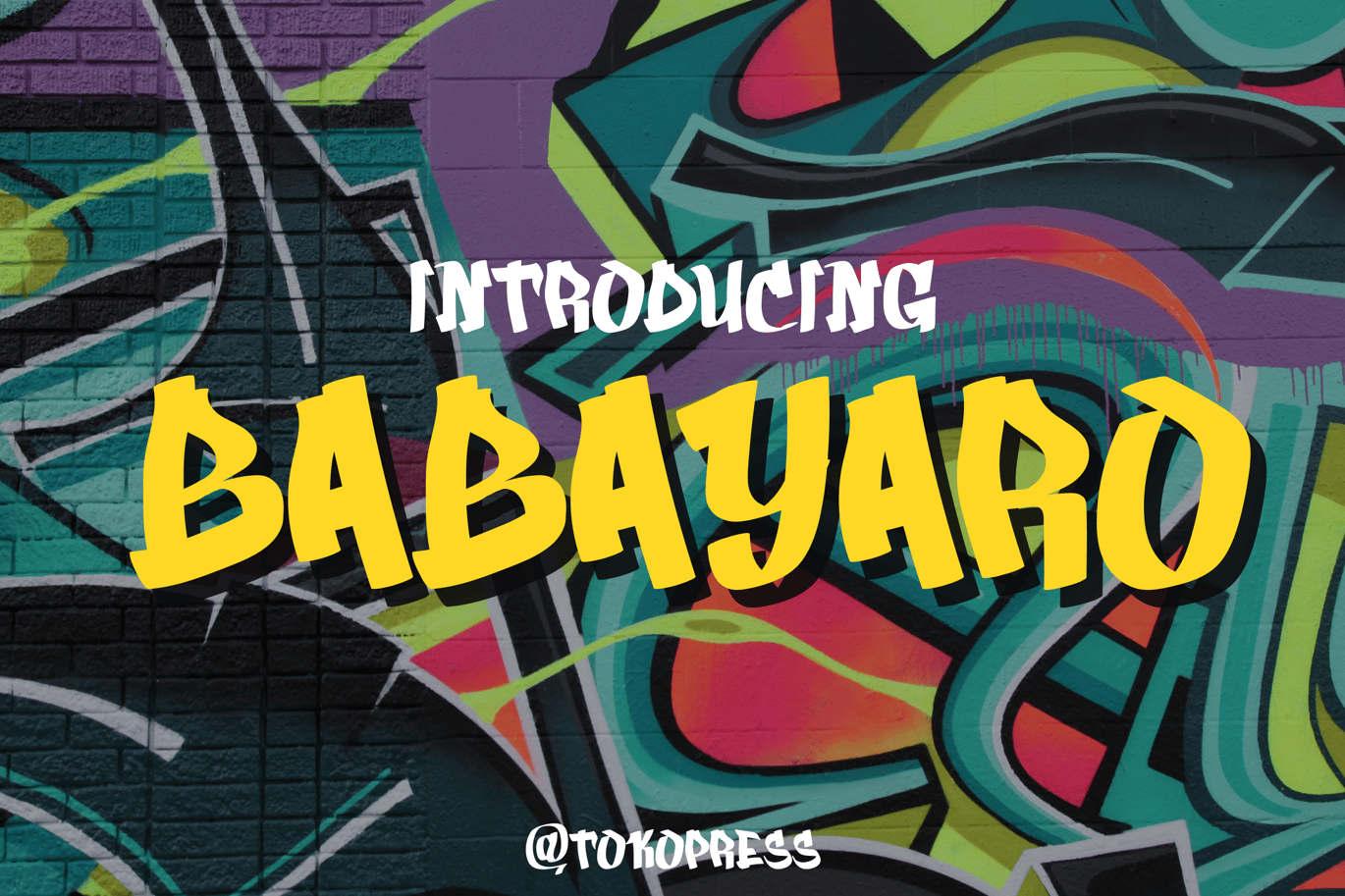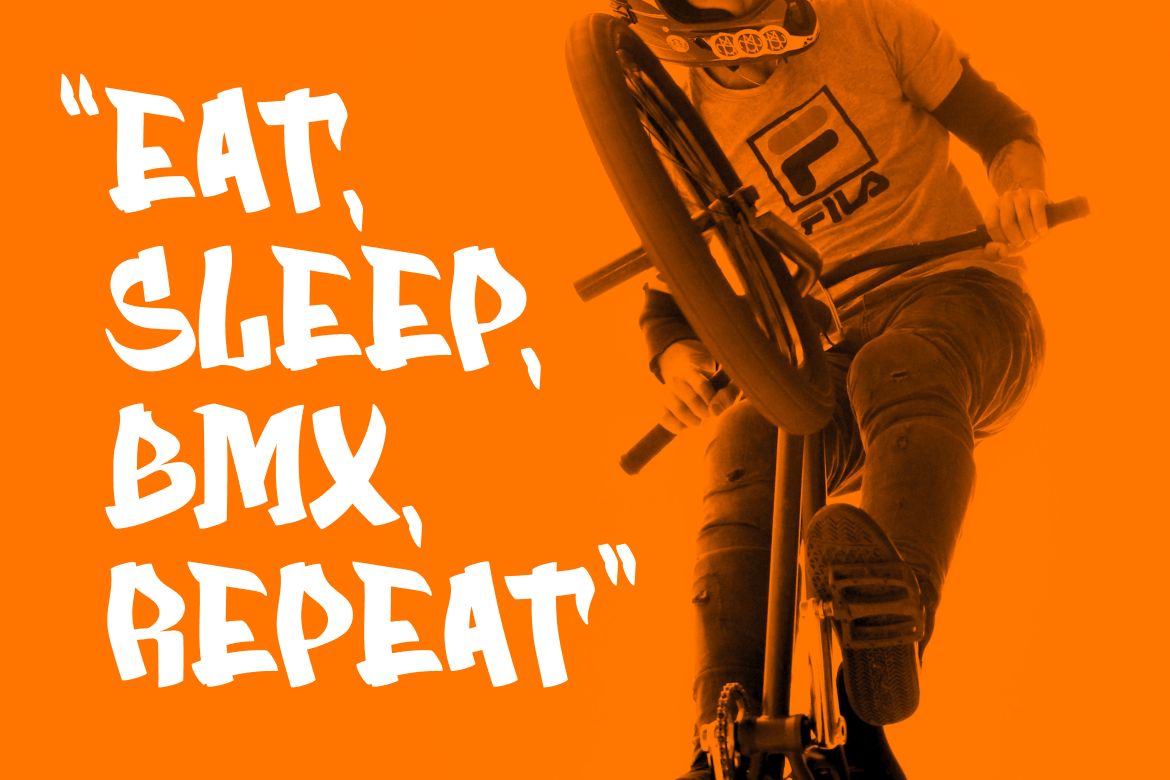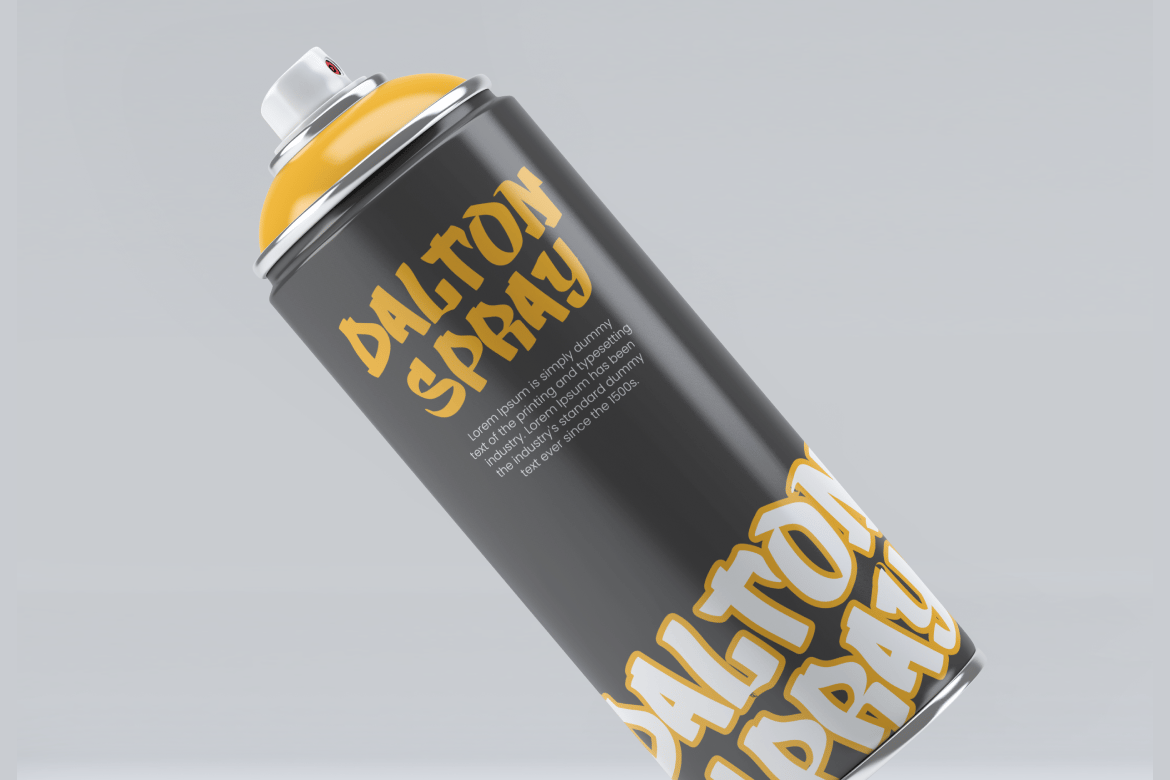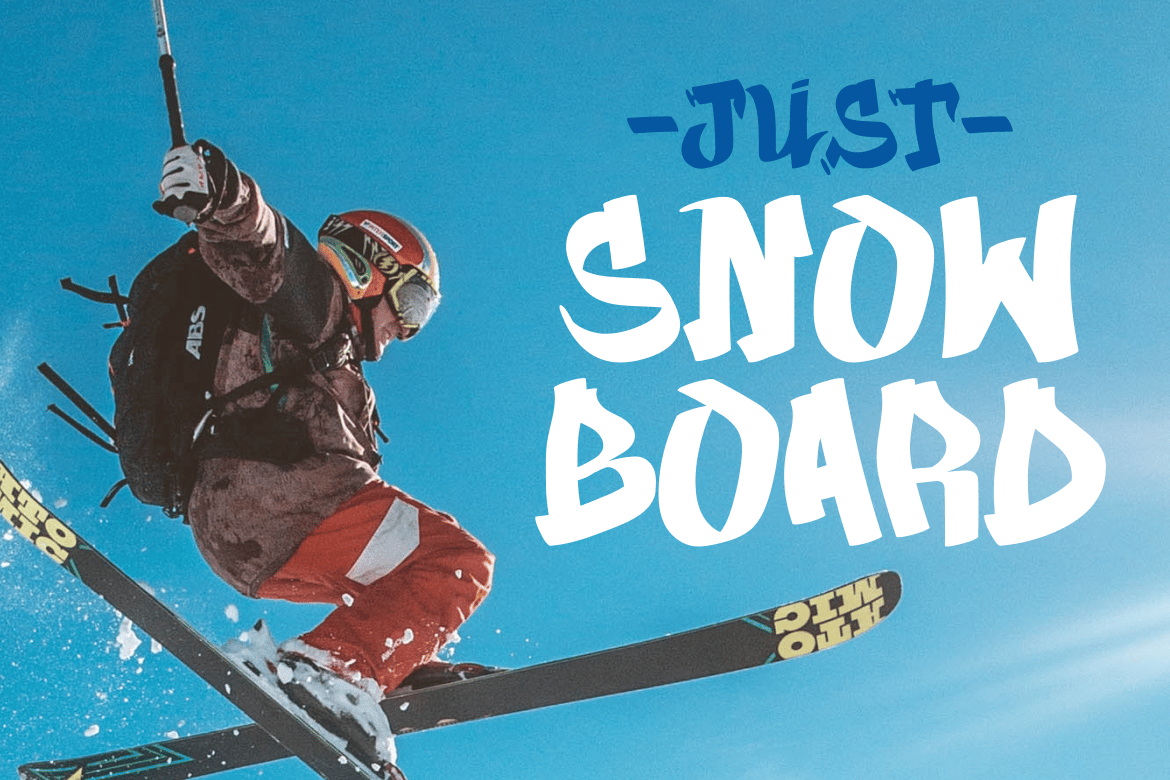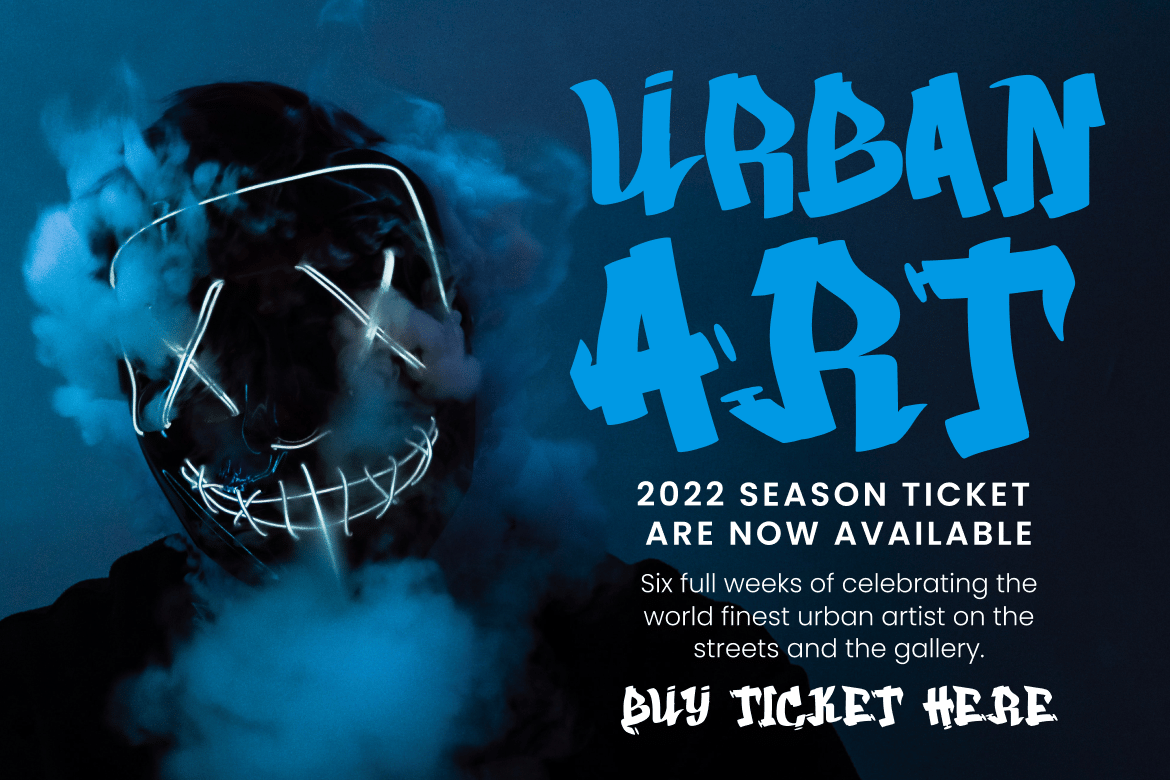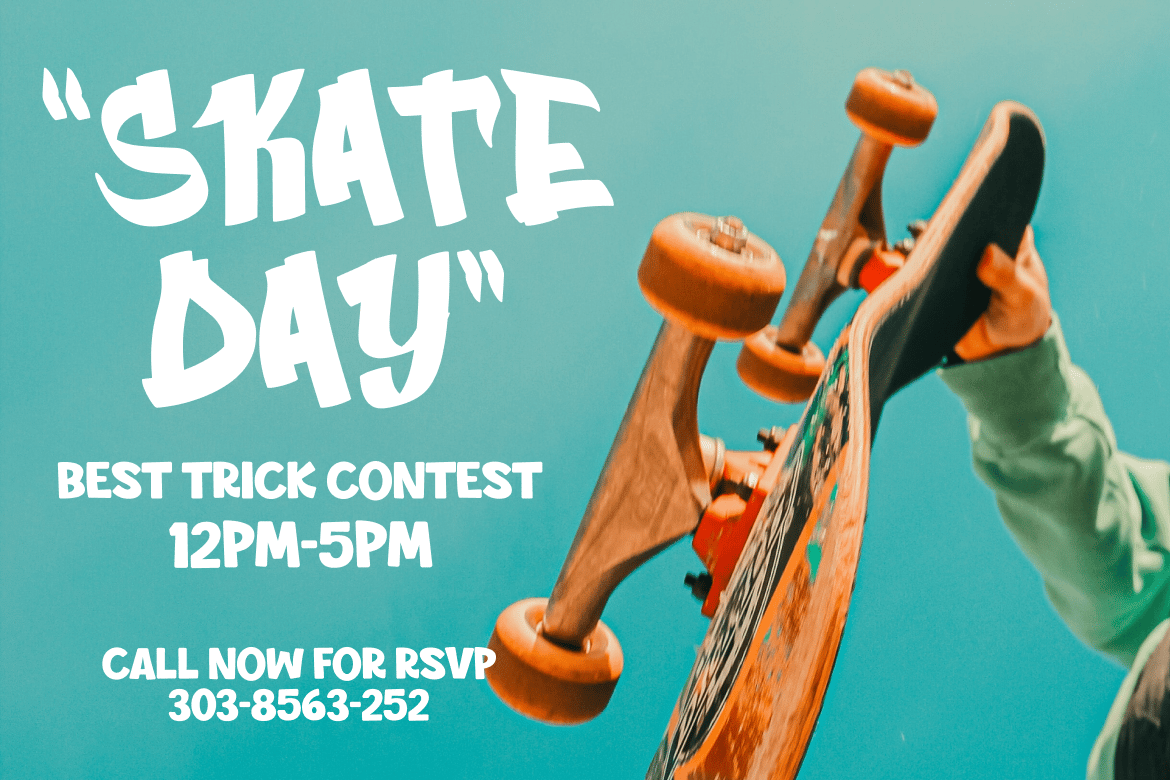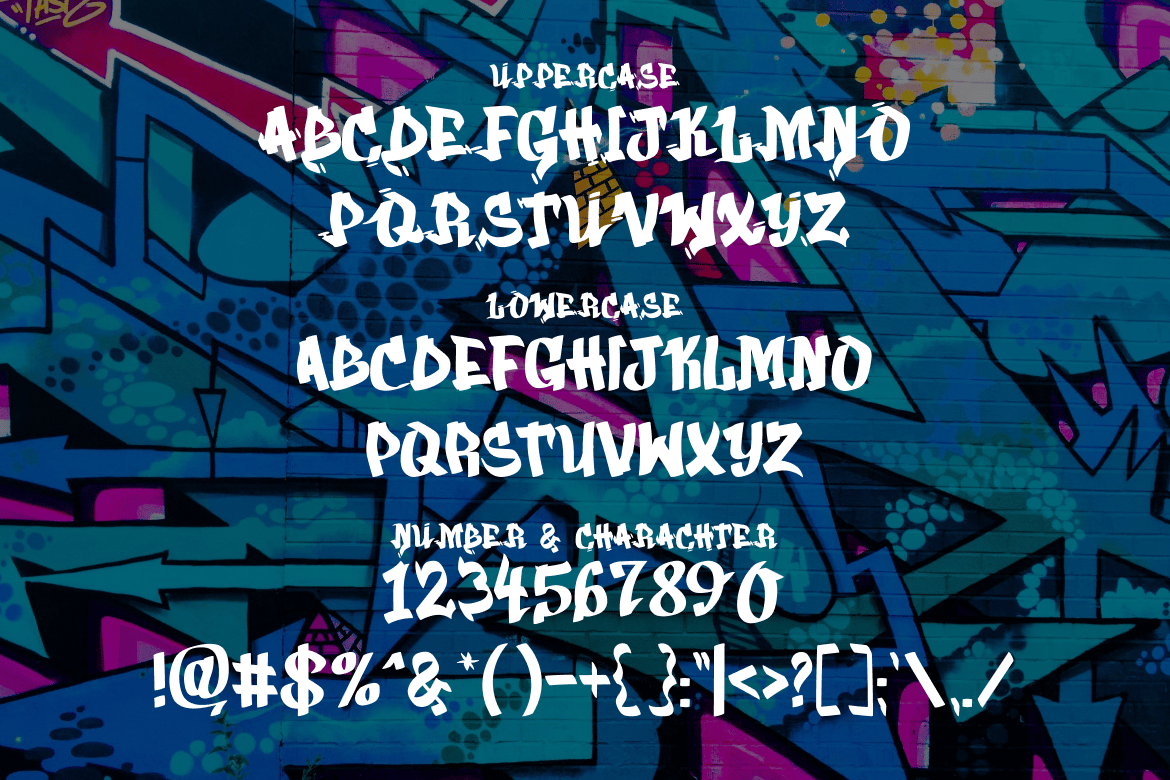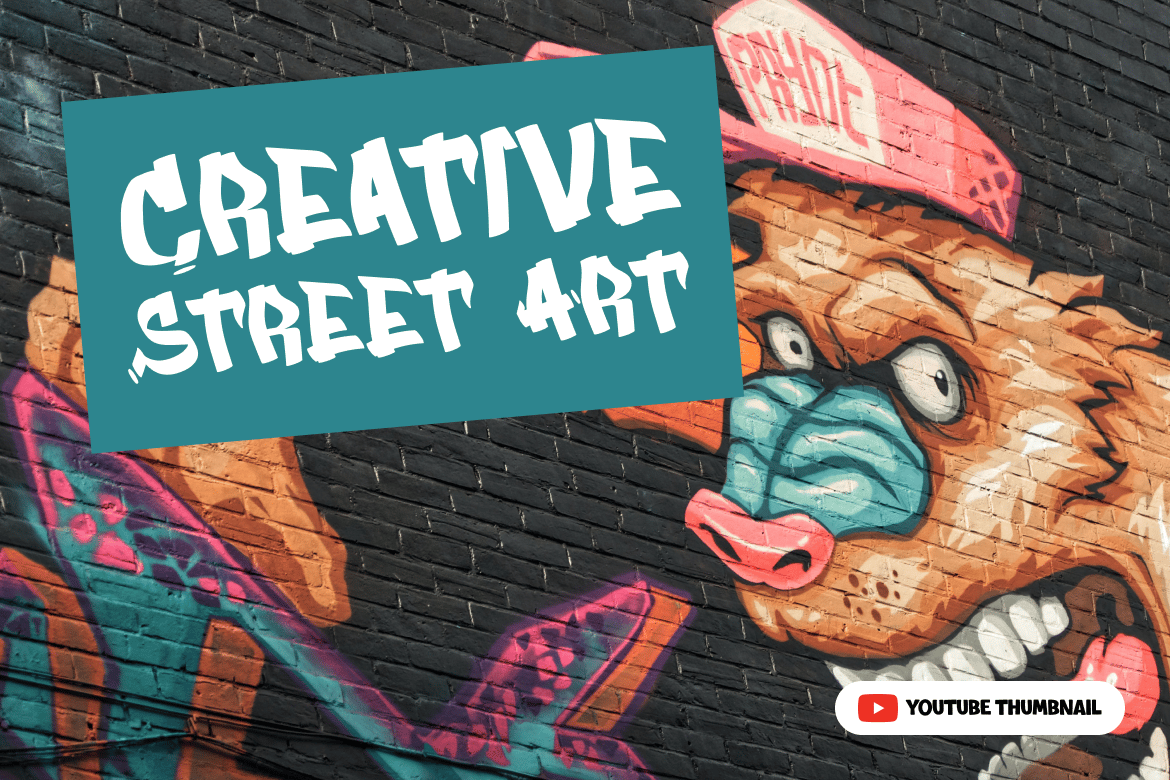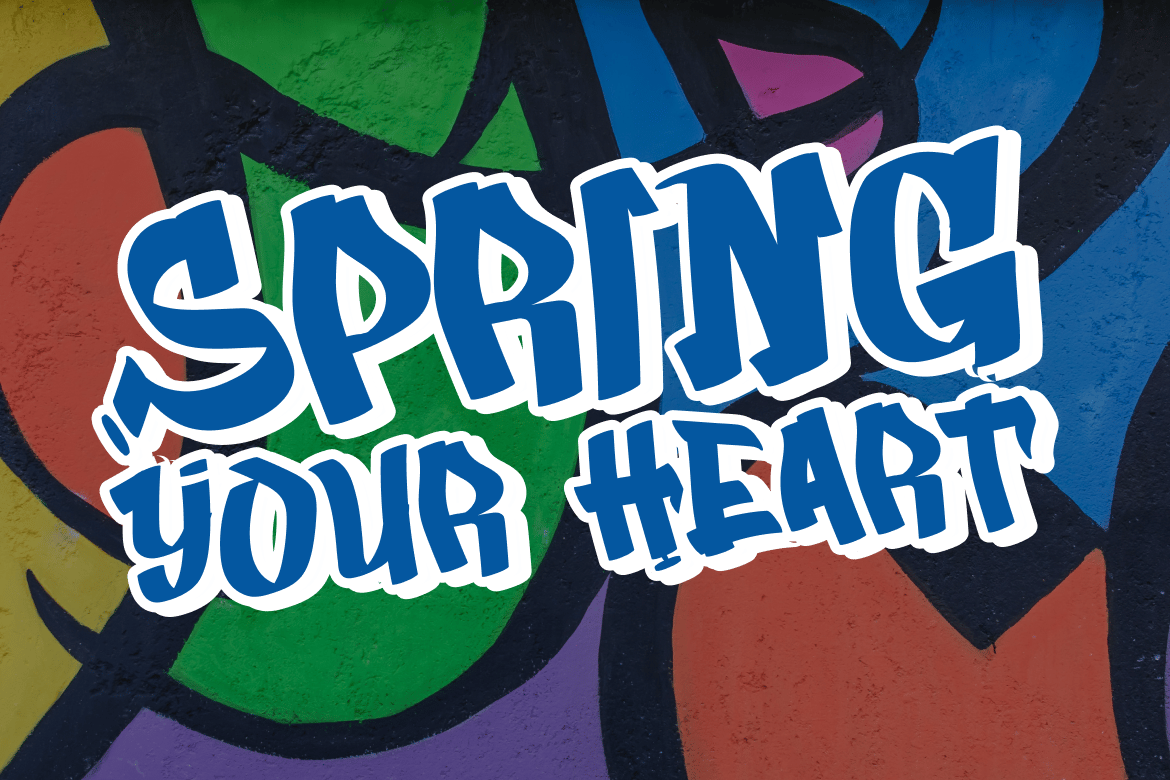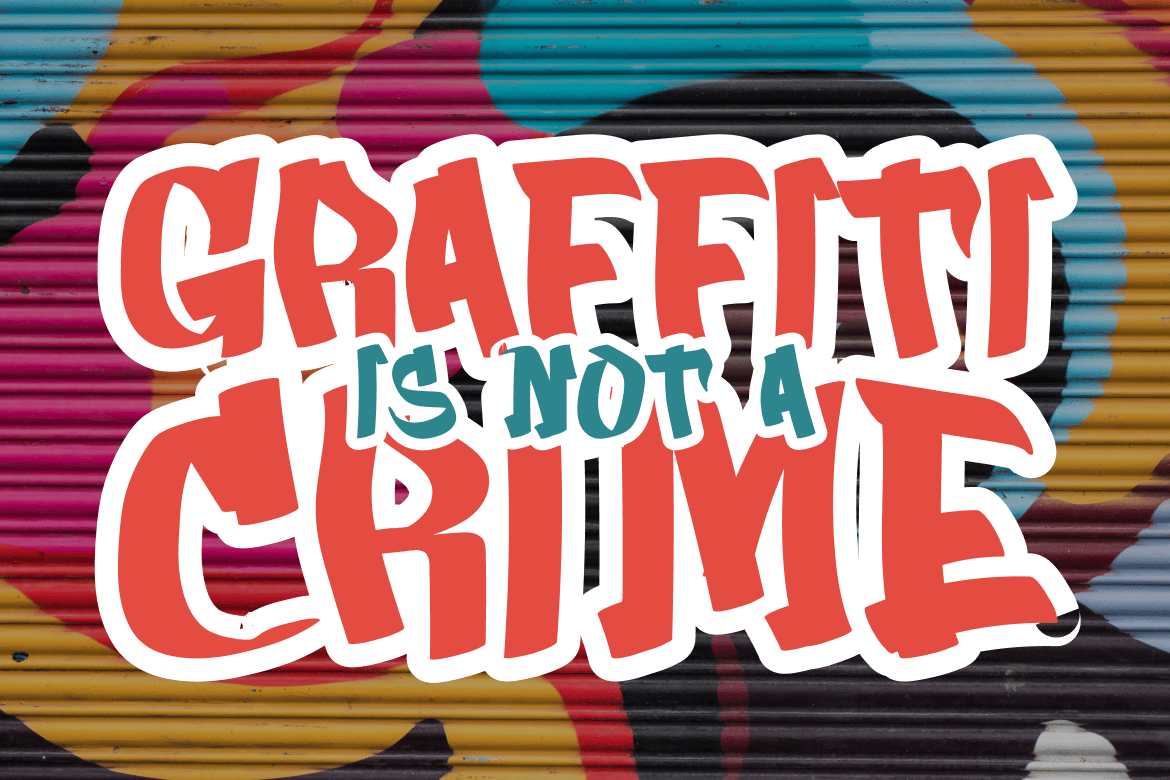
BABAYARO – graffiti font
BABAYARO- Graffiti font
Bomb the wall with your masterpiece, just like Mozart did with his music. You did it with our font.
Suit perfectly for hip-hop, rebelious and extreme sport segmented magazine, poster, movie title, music poster, youtube covers, youtube thumbnails, social media page covers and so on…